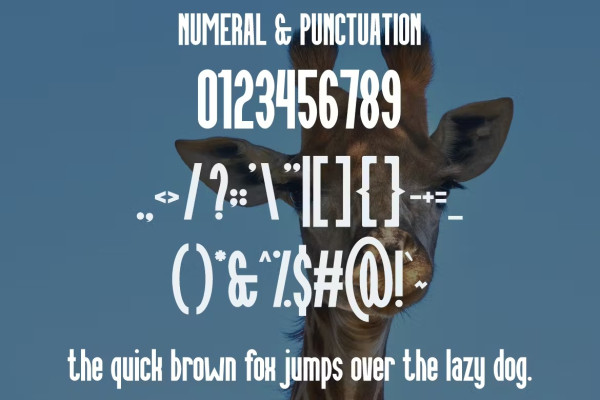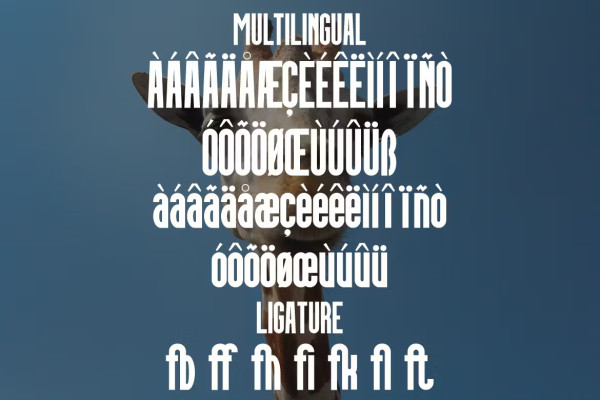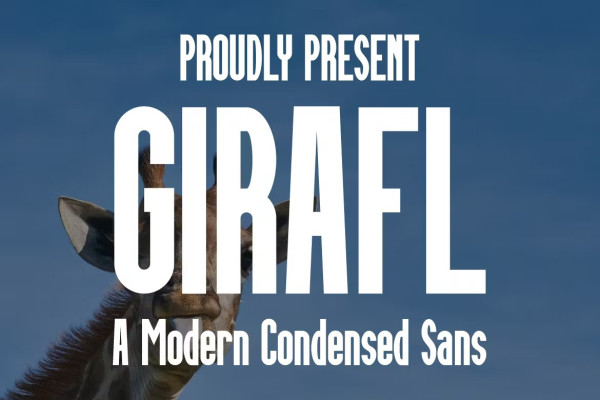
Girafl Font
Girafl Font – Condensed Sans Font – Modern Font is a bold and authentic display font. The font is suitable for any branding project such as logo, Template design, esports, etc. She is exceptional in a wide range of contexts